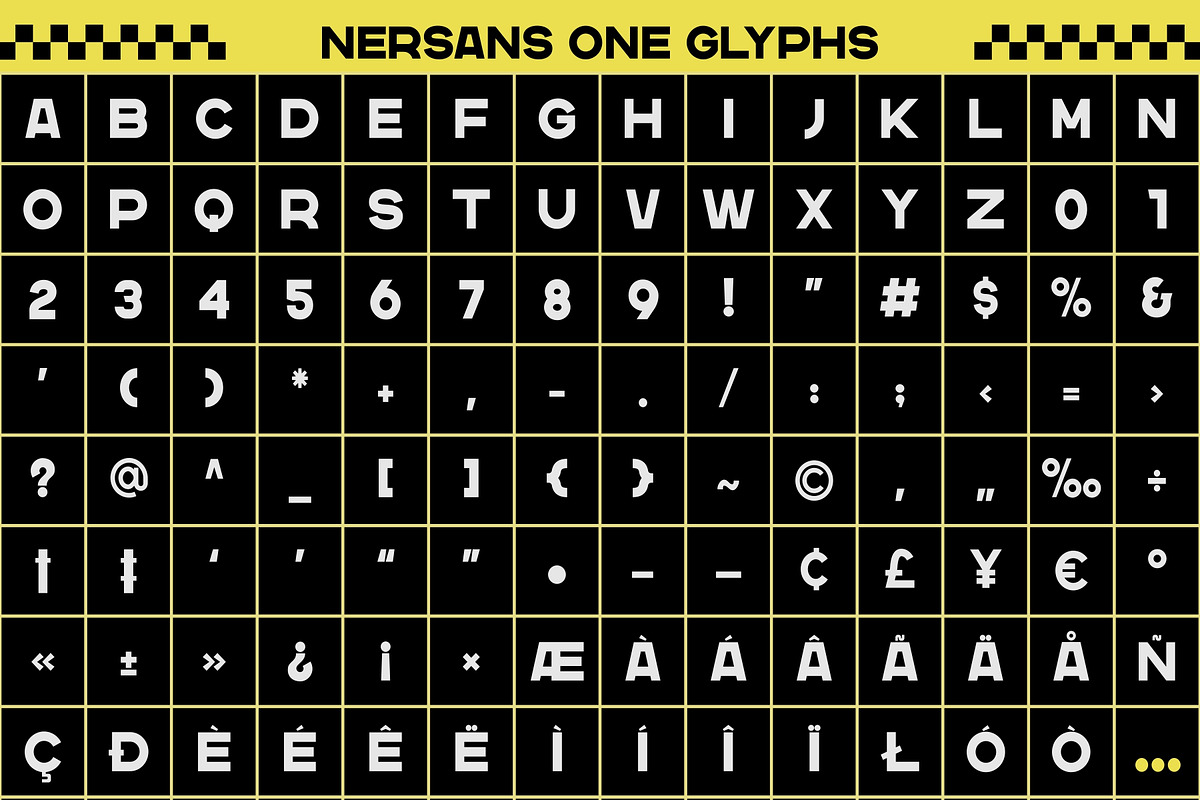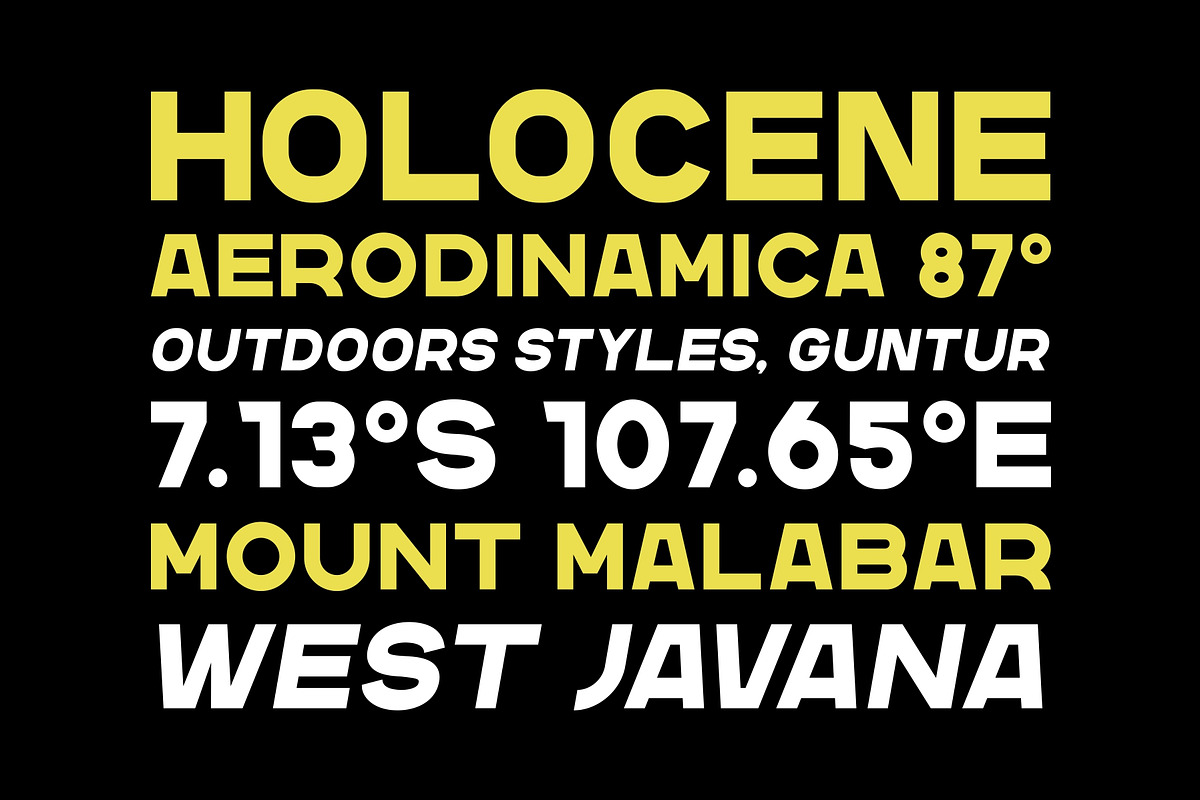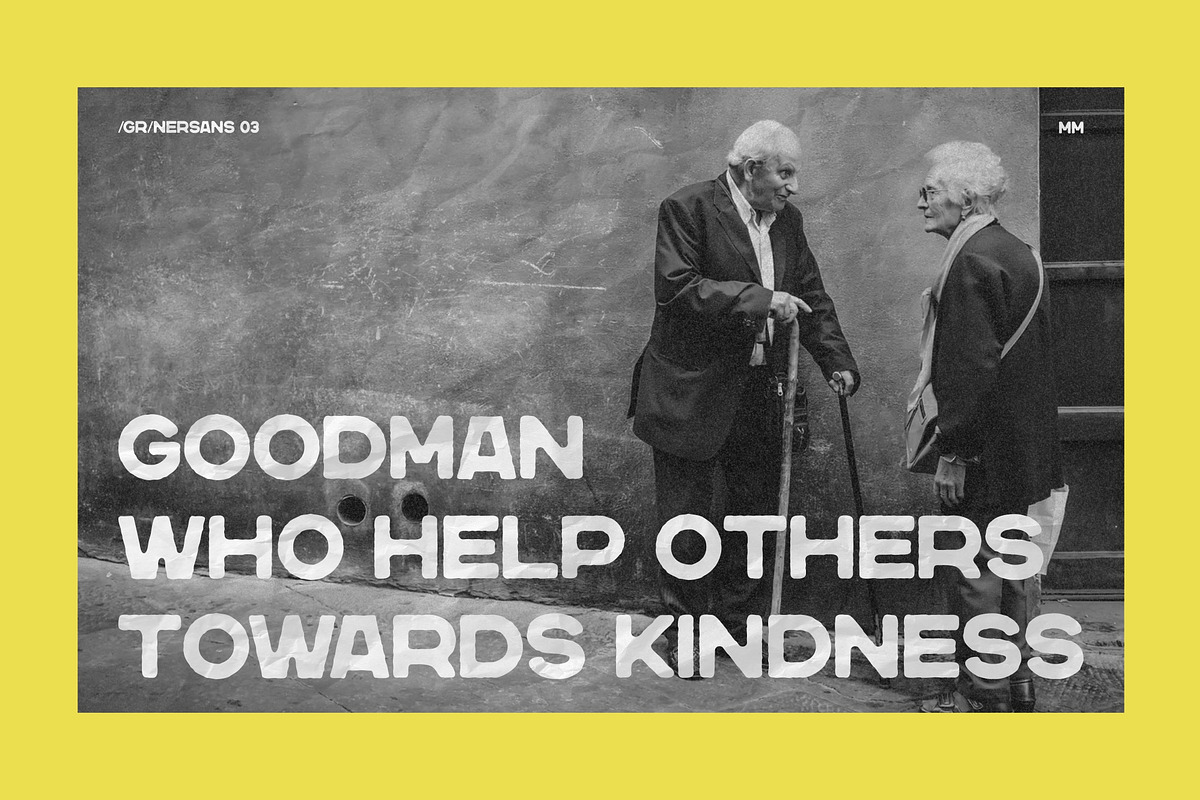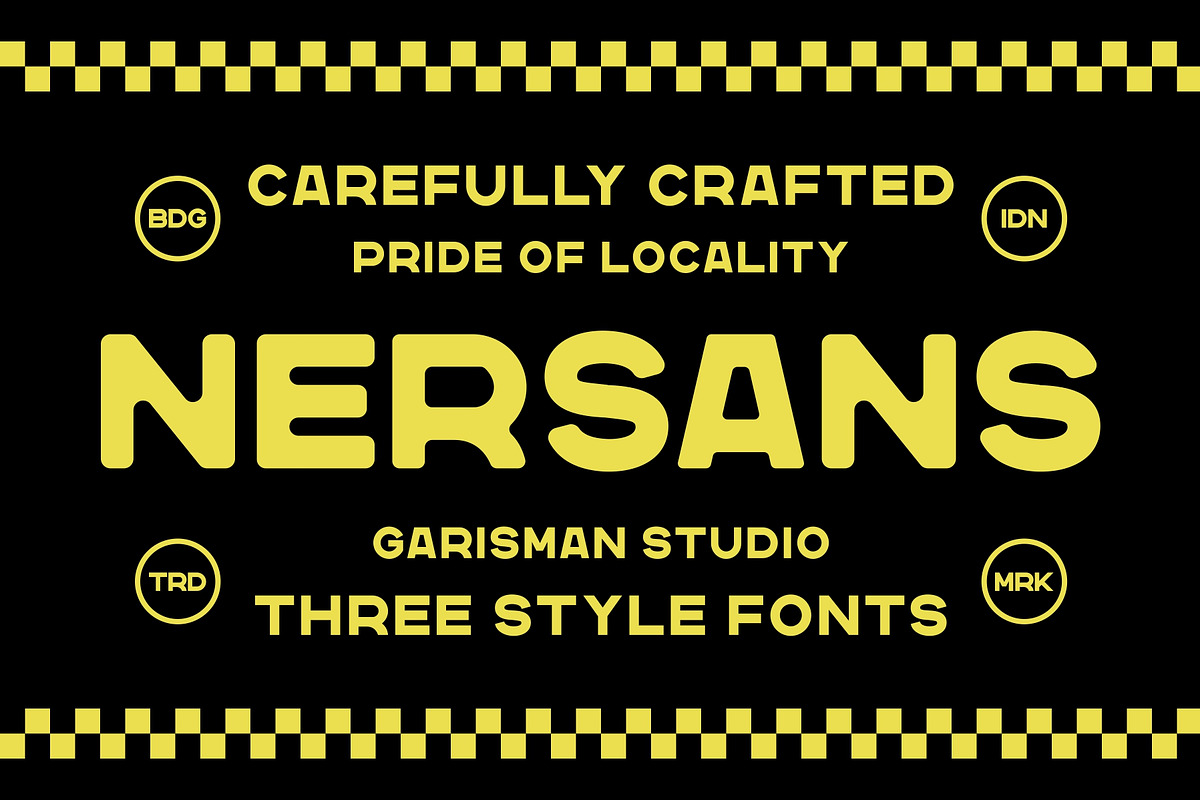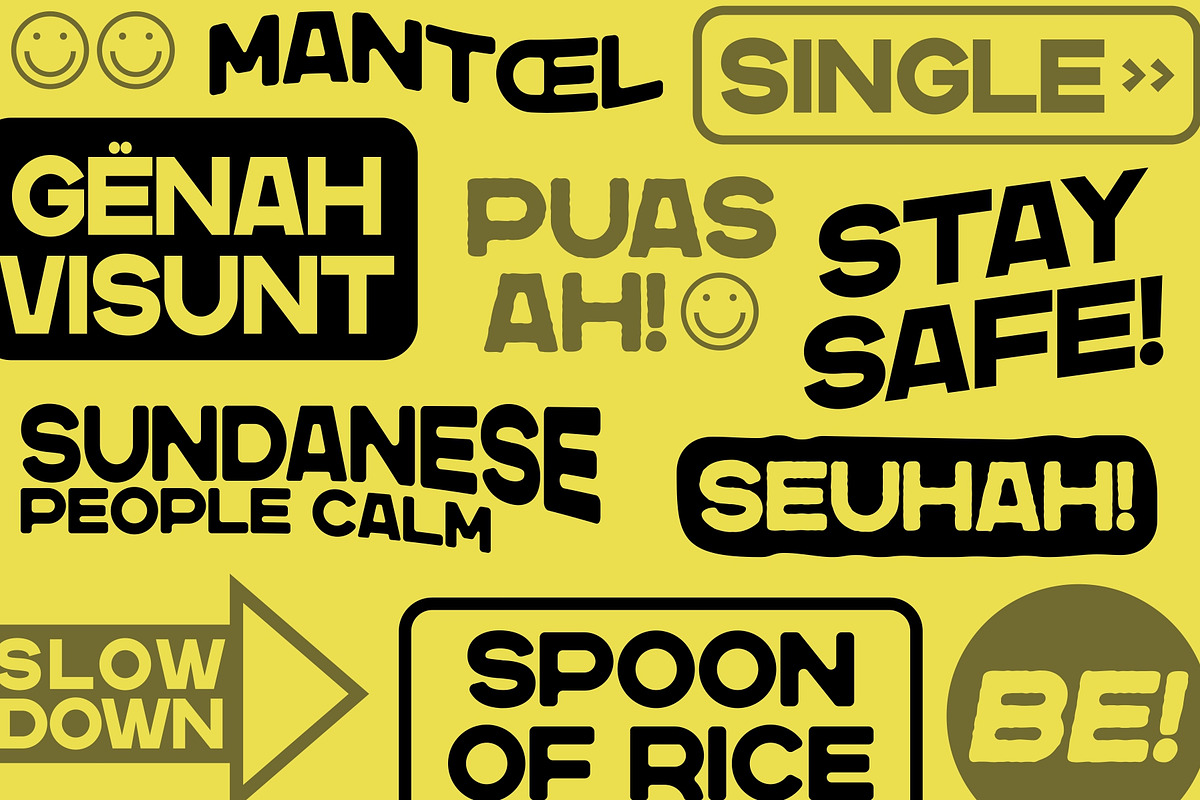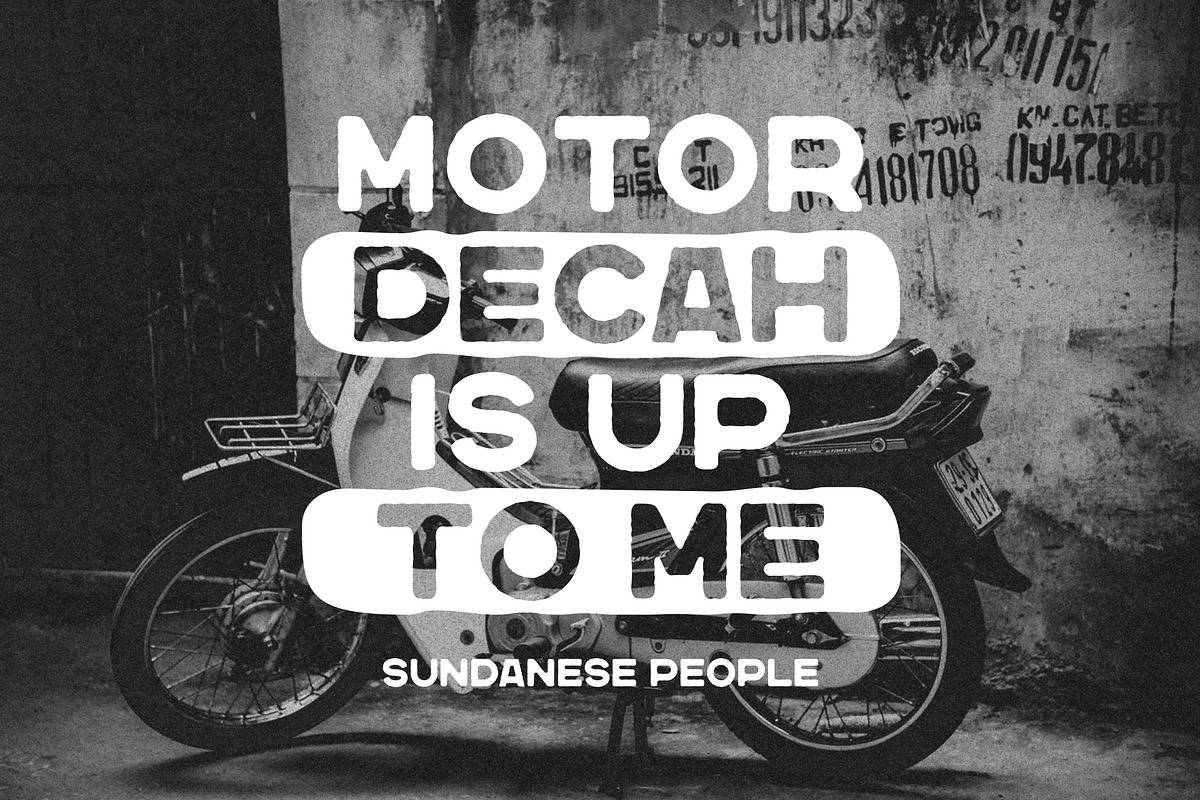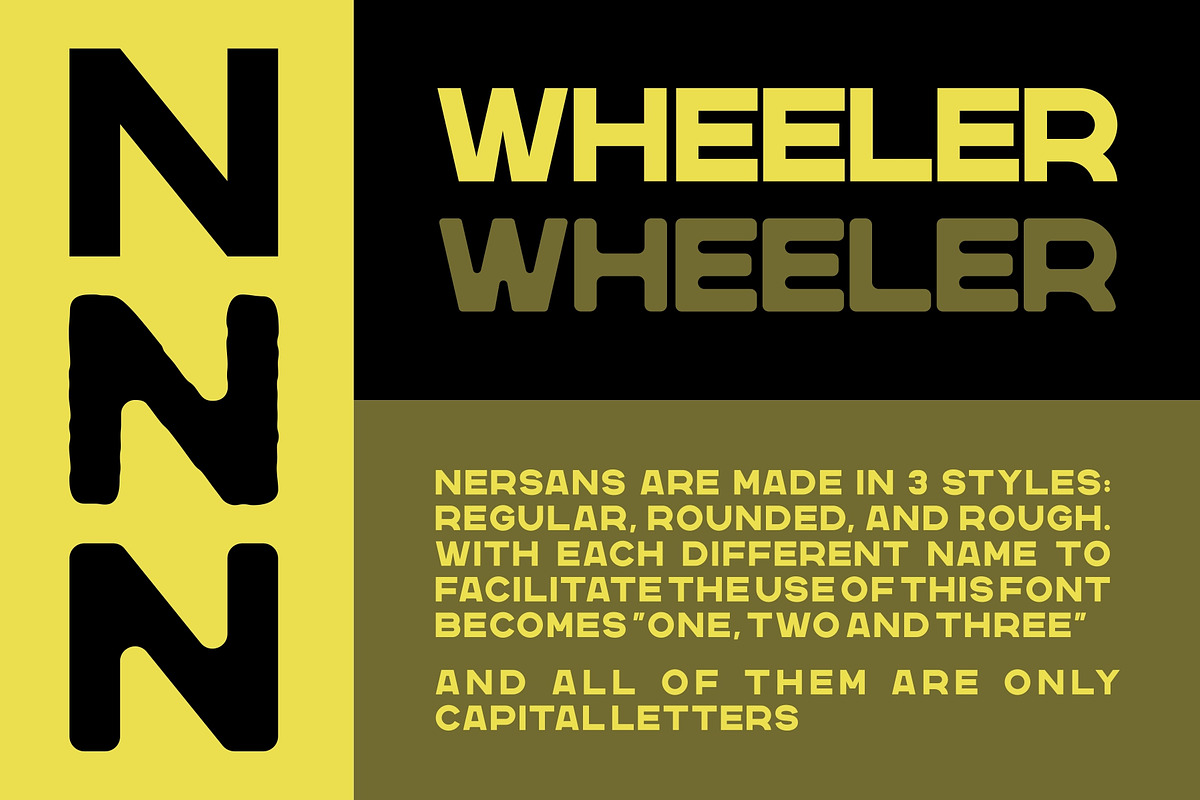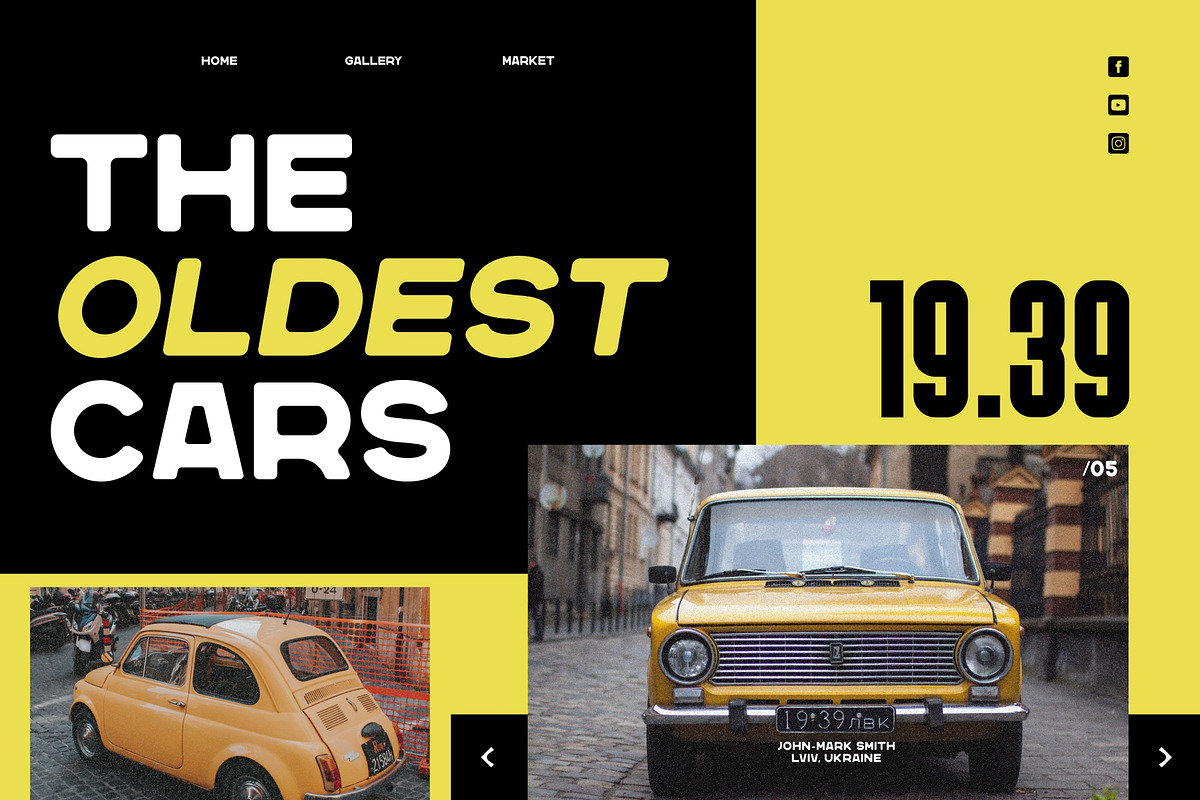
Nersans - Vintage Font [3 Styles]
Proudly Present: Nersans - Vintage Font with 3 Styles
Nersans born from an inspiring vintage display with all caps glyphs. This font gives a feel of a vintage, classic, old, handmade looked like. Already PUA Encoded and I think this font is perfect for people looking for vintage aesthetic or logo-type. Suitable for any graphic designs such as branding materials, t-shirt, print, business cards, logo, poster, t-shirt, photography, quotes .etc.
- Regular and Slant style
- Multilingual characters (support for 16 languages): Afrikaans, Albanian, Danish, Dutch, English, Estonian, Finnish, French, German, Icelandic, Italian, Norwegian, Portuguese, Spanish, Swedish, Zulu.